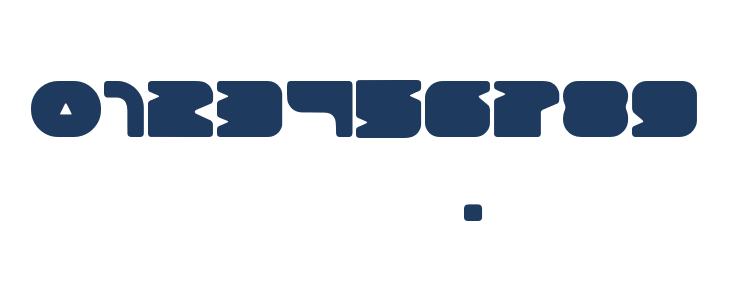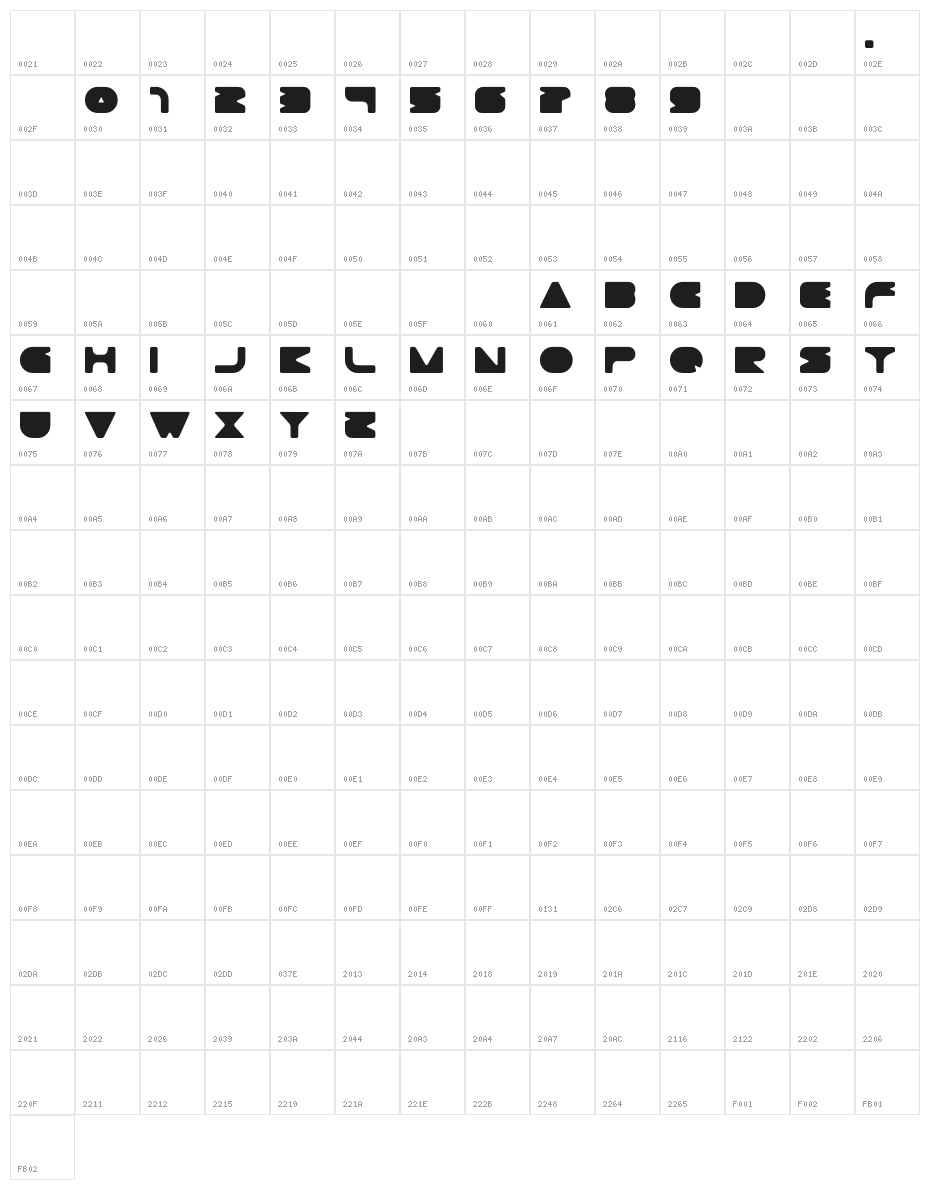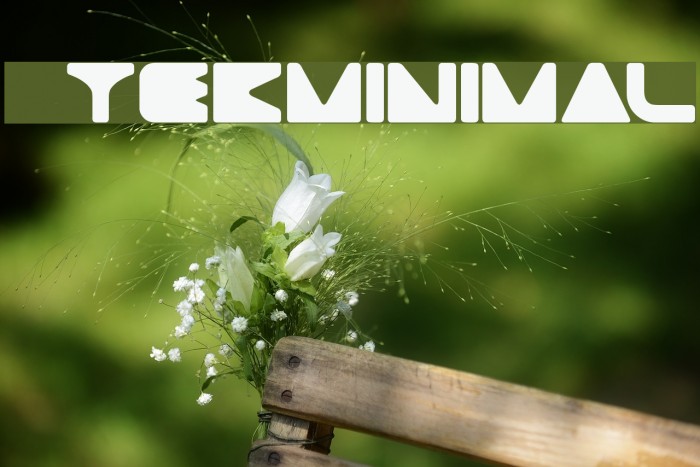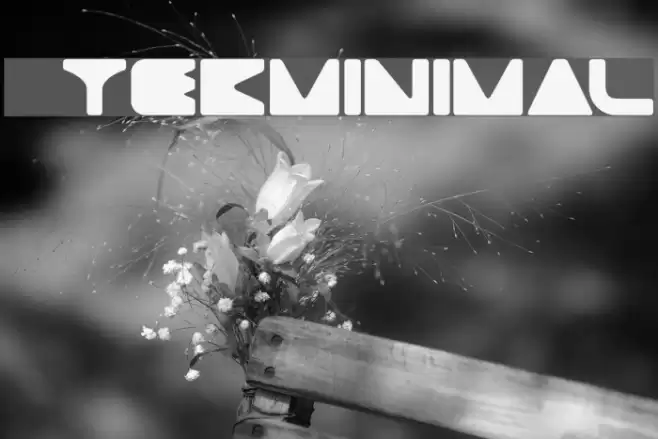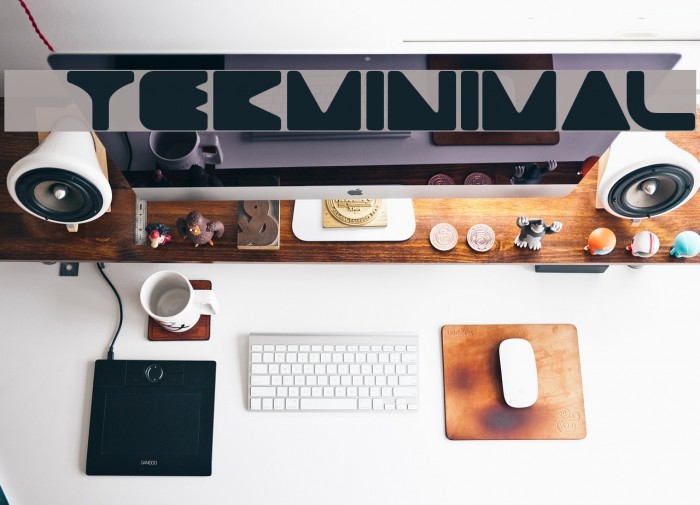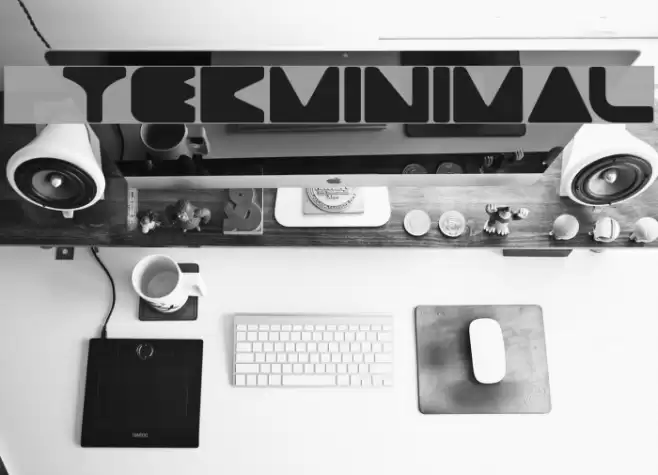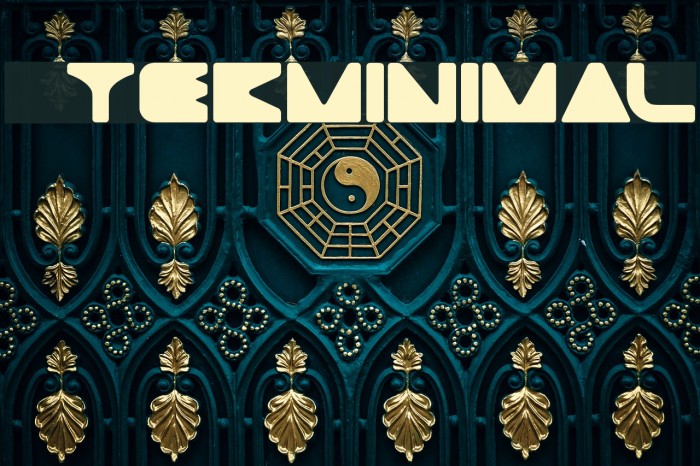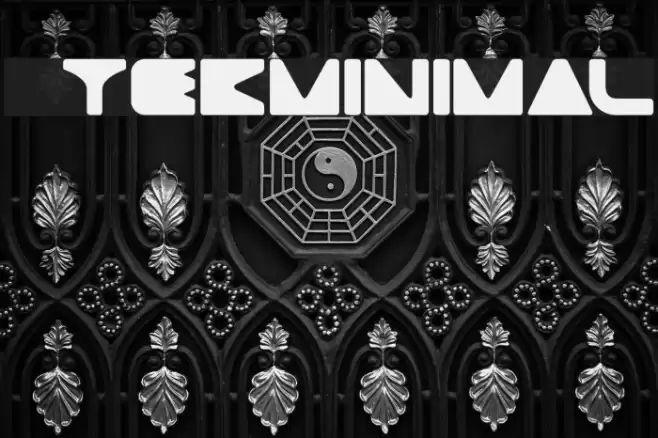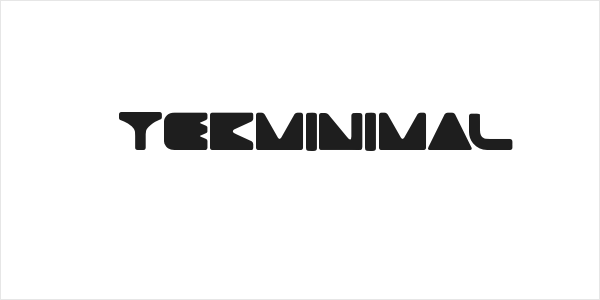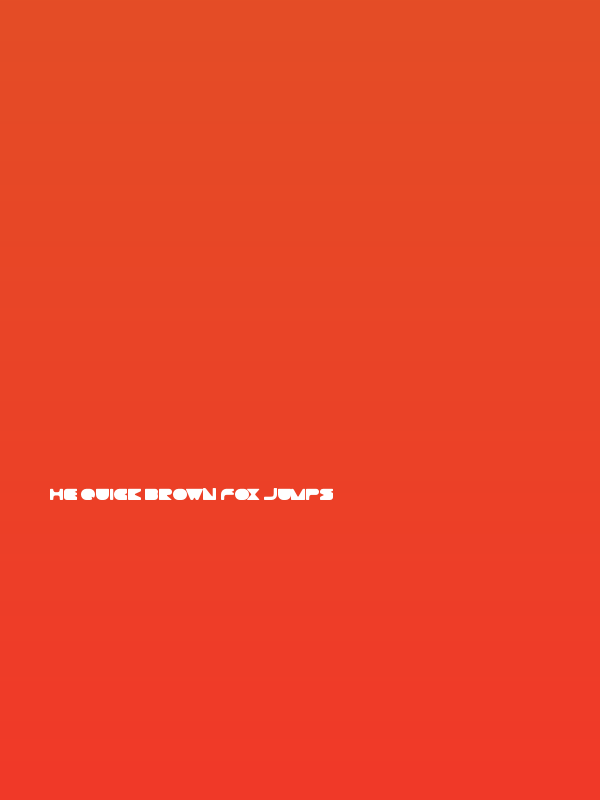
Gtekminimal Font
Gtekminimal Description
This font features a bold, geometric design with a futuristic and minimalistic aesthetic. The characters are constructed with solid, block-like shapes, giving them a strong and impactful presence. The use of negative space is prominent, creating a unique visual rhythm. The uppercase and lowercase letters maintain a consistent style, with rounded edges and uniform thickness. The numerals and special characters follow the same design principles, ensuring a cohesive look across all elements. This font's distinct style makes it suitable for modern and tech-oriented projects.
| Proposed Projects | Ideal for technology branding, sci-fi posters, modern logos, and digital interfaces. |